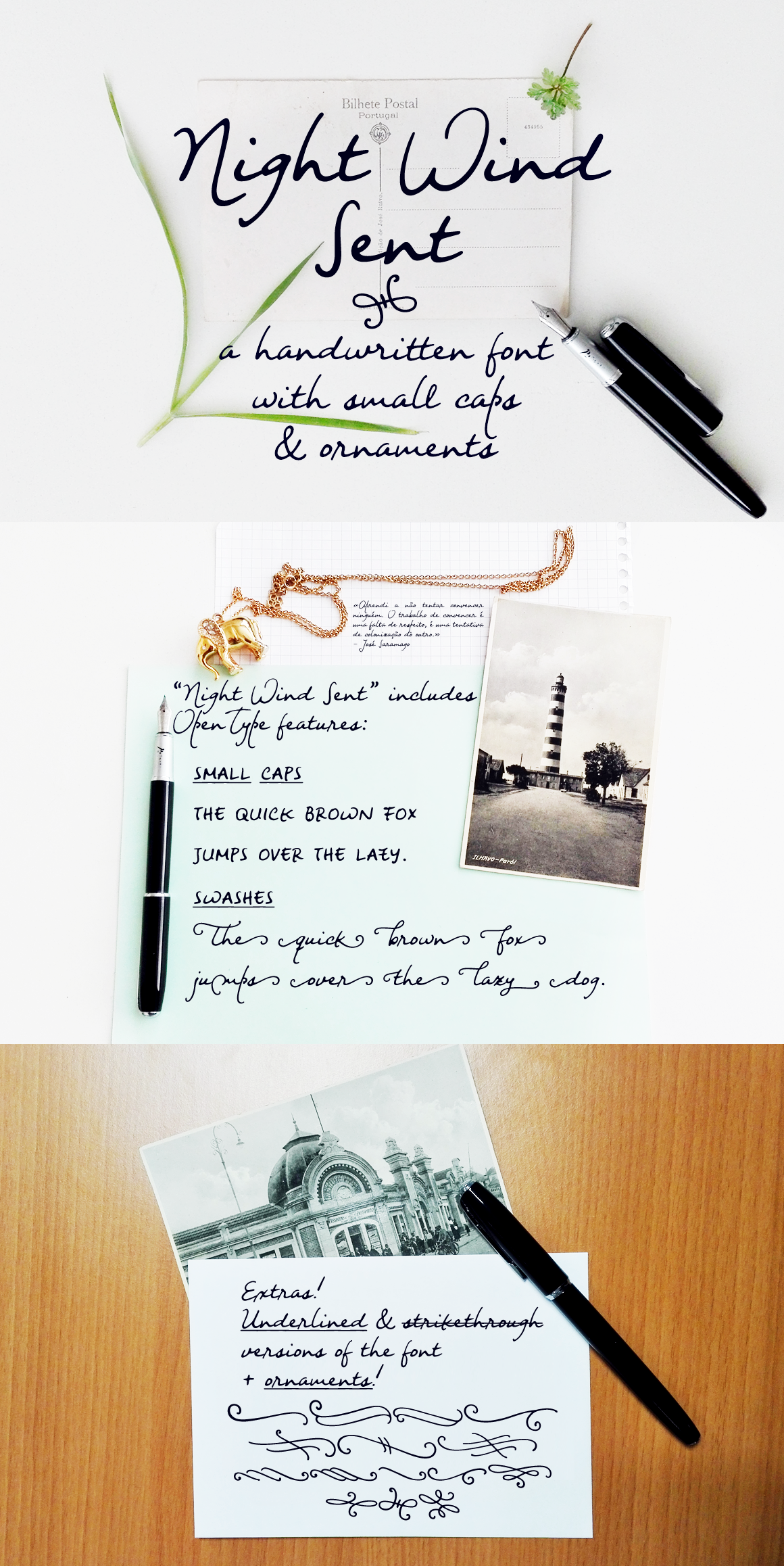
Night Wind Sent handwritten font
Night Wind Sent is an elegant handwritten font, with:
- A-Z, a-z, 0-9, accents punctuation and symbols
- Small Caps
- Extra versions of the font: underline and strikethrough
- Ornaments with which to decorate your text
It's perfect for any design that needs a handwritten feel, such as signatures, notes and quotes, logos and branding
To access the swashes, please add a space before (after) the initial (terminal) letter.